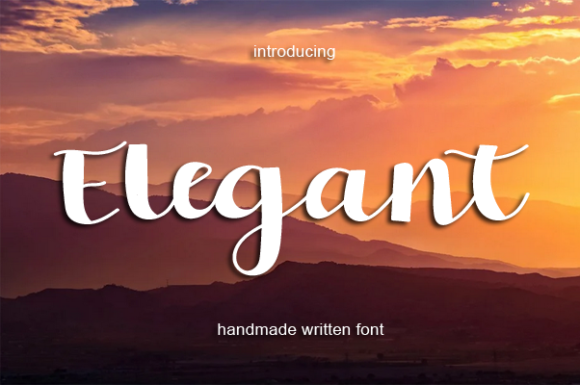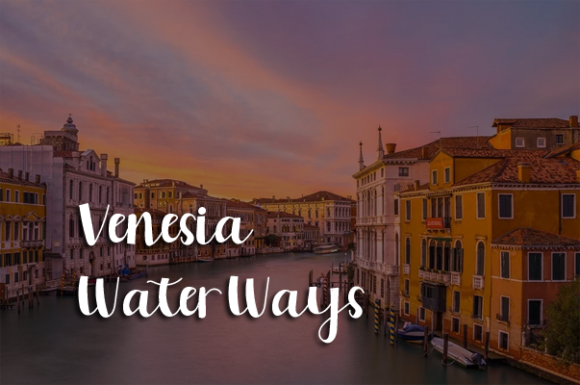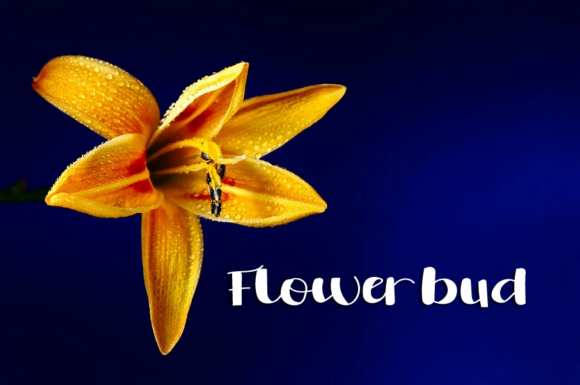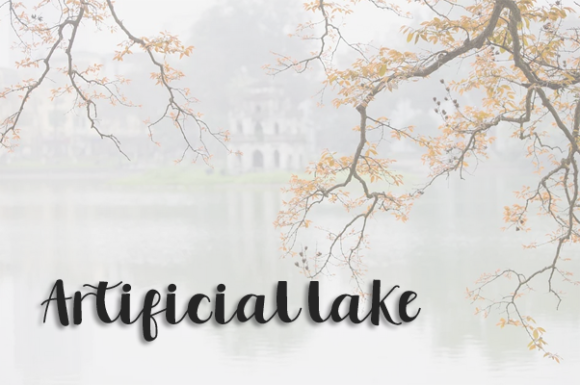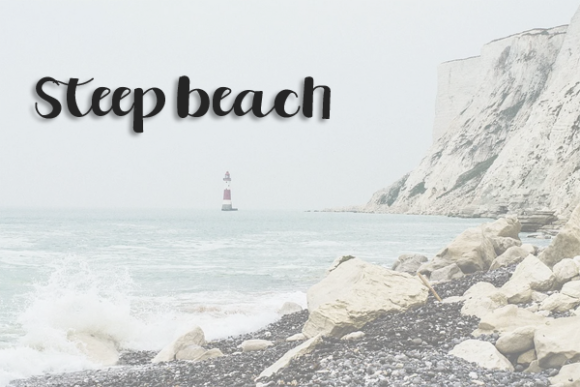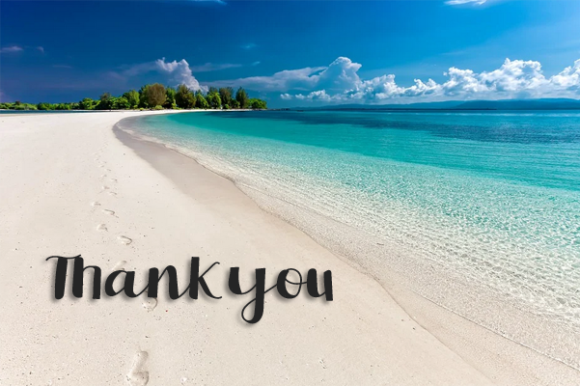
Elegant Font: Elevate Your Designs with Timeless Sophistication
In the world of typography, few fonts capture the essence of refinement and poise as effortlessly as Elegant. This flowing, handwritten font is a masterclass in elegance, designed to breathe life into your designs, logos, branding, and quotes. With its unique and beautiful touch, Elegant is poised to become your go-to choice for projects that demand a touch of sophistication and timelessness.
The Charm of Elegant Font
Elegant is more than just a font; it’s an experience. Each letter is meticulously crafted to exude a sense of luxury and fluidity, making it perfect for designers and crafters looking to add a dash of class to their work. Whether you’re creating a logo that needs to stand out, developing a brand identity that speaks of elegance, or crafting quotes that inspire, Elegant provides the perfect blend of aesthetic appeal and readability.
Why Choose Elegant Font?
- Unique and Beautiful Touch: Every letter in the Elegant font is designed with a unique flair, ensuring that your designs stand out from the crowd. The beautiful touch of each character adds a layer of sophistication that is hard to achieve with standard fonts.
- Flowing and Timeless: The flowing nature of Elegant ensures that your text reads smoothly, creating a pleasant experience for the reader. Its timeless quality means that your designs will remain relevant and stylish for years to come, without the need for frequent updates.
- Ease of Use: Elegant is incredibly versatile and can be used across various design projects, from digital content to print materials. Its clear and flowing script makes it easy to read, ensuring your message is communicated effectively.
- Eye-Catching Logos and Branding: For businesses and individuals looking to create a lasting impression, Elegant offers a sophisticated solution. Its elegant and refined appearance makes it ideal for logos, brand names, and taglines that need to convey a sense of luxury and quality.
Applications of Elegant Font
The versatility of Elegant font makes it suitable for a wide range of applications. Here are some of the most popular uses:
- Logo Design: Create memorable and stylish logos that set your brand apart.
- Branding Materials: Enhance your brand’s visual identity with elegant business cards, brochures, and letterheads.
- Quotes and Inspirational Content: Add a touch of elegance to your motivational quotes, posters, and social media content.
- Wedding and Event Decor: Use Elegant font for wedding invitations, event banners, and other decorative materials to set the tone for a sophisticated affair.
- Digital Content: Elevate your website, blog, or social media posts with a font that exudes elegance and professionalism.
Tips for Using Elegant Font Effectively
To maximize the impact of Elegant font in your designs, consider the following tips:
- Pair with Complementary Fonts: For optimal results, pair Elegant with simpler, sans-serif fonts for headings and body text to create a balanced design.
- Adjust Letter Spacing: Fine-tune the letter spacing to ensure optimal readability and aesthetic appeal.
- Use Appropriate Colors: Elegant font looks best with solid, dark colors. Experiment with different shades to find the one that best suits your design.
Elegant font is a powerful tool for designers and crafters aiming to infuse their projects with a sense of sophistication and elegance. Its flowing, timeless design and unique touch make it an excellent choice for a wide range of applications, from logos and branding to quotes and digital content. By incorporating Elegant into your design repertoire, you’ll be well on your way to creating visually stunning and impactful works that stand the test of time.